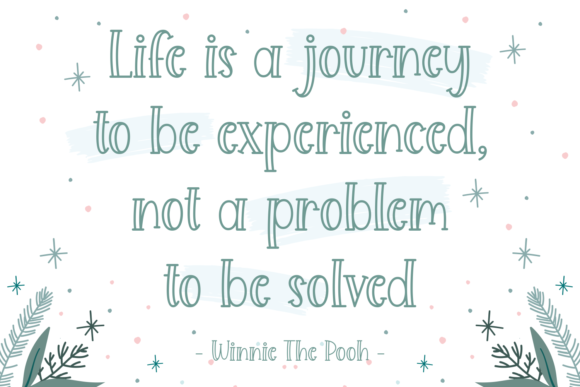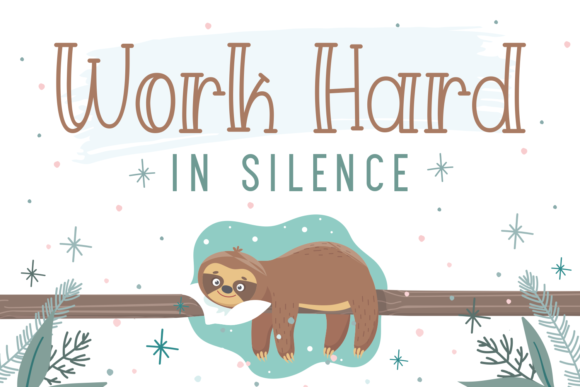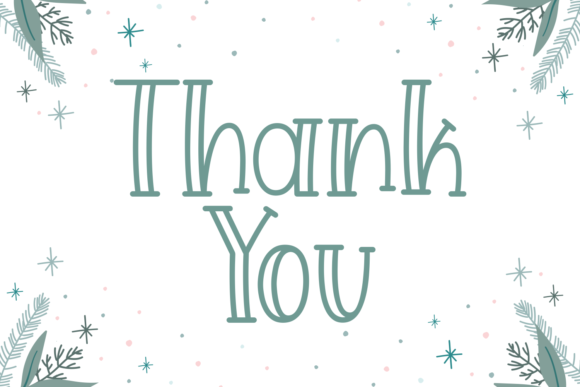
Introduction to Mapala Font
Have you ever stared at a blank canvas, wondering how to bring your creative vision to life? That’s exactly what happened to many designers when they first laid eyes on the Mapala Font. This sophisticated and genuine display font has the power to elevate even the most mundane design ideas into something truly special.
With its high-quality design and transparent background, the Mapala Font is the perfect addition to any creative project. Whether you’re working on a formal corporate identity or an informal social media campaign, this versatile font is sure to make a lasting impression. And the best part? It’s available for free download, making it an invaluable design resource for designers of all levels.
So why is the Mapala Font so valuable for designers? For one, it offers a level of sophistication and elegance that’s hard to find in other fonts. Its unique style and versatility make it a go-to choice for designers who want to create truly memorable designs that stand out from the crowd.
Key Features of Mapala Font
- High-quality design: Mapala Font is a beautifully crafted font perfect for creative projects requiring a touch of elegance.
- Unique script style: Mapala Font features a unique script style that adds a touch of creativity to any design project.
Honest Review: Mapala Font
I recently had the chance to work with the Mapala Font, and I must say it’s been a great addition to my design resources. The first thing that caught my attention was its high quality and sleek design. It’s perfect for any creative project that requires a clean and modern look.
- High-quality design that’s perfect for modern projects
- Limited font styles and weights available
Overall, I’m really impressed with the Mapala Font. It’s a solid addition to any designer’s toolkit, and I’d definitely recommend it for any creative project. With its high-quality design and transparent background, it’s a great choice for designers looking for a reliable and easy-to-use font.
Mapala Font
The Mapala Font is a high-quality design resource that offers a unique and creative touch to your projects. This free download font features a transparent background, making it perfect for various design applications.
Tips for Getting the Most Out of Mapala Font
To get the most out of the Mapala Font, use it in creative projects that require a unique and high-quality design element. This font is perfect for graphic design, digital art, and other design-related applications.
The Mapala Font is commonly used in various design projects, including:
- Digital art
- Brand identity
- Marketing materials